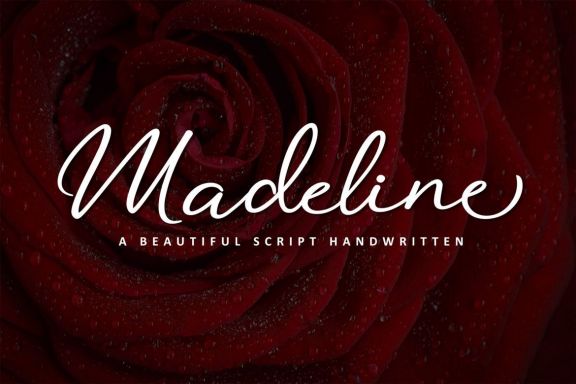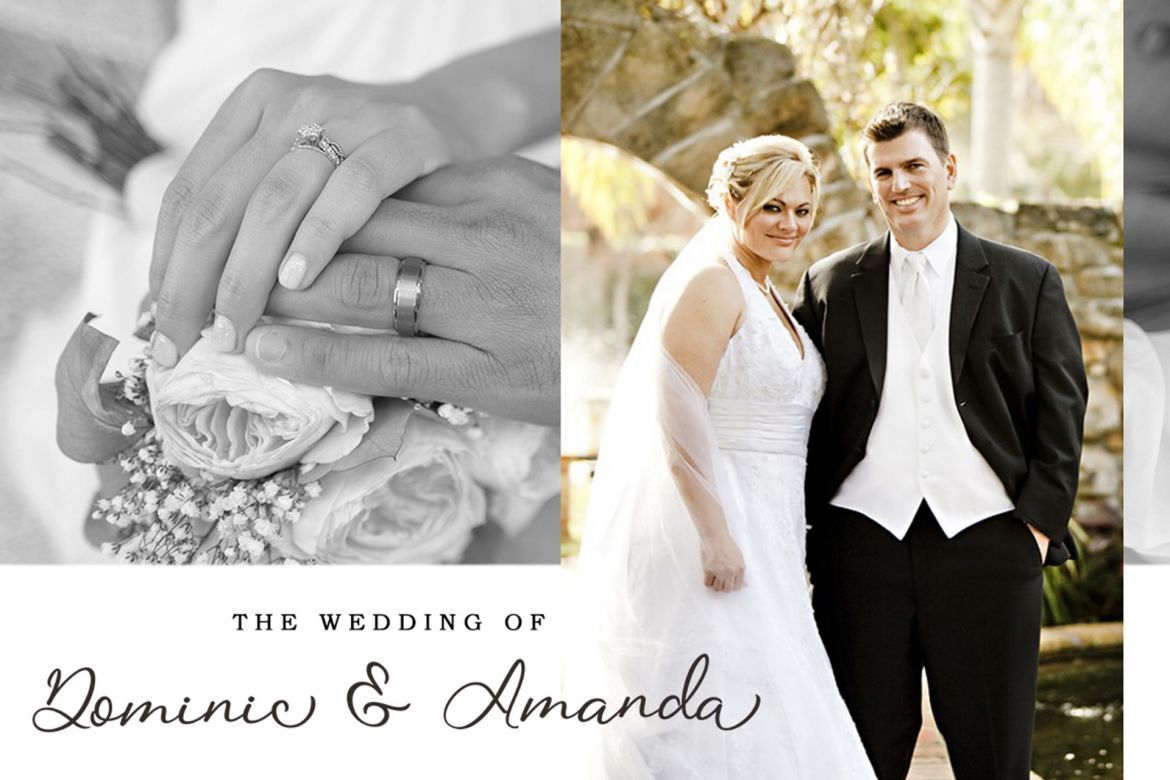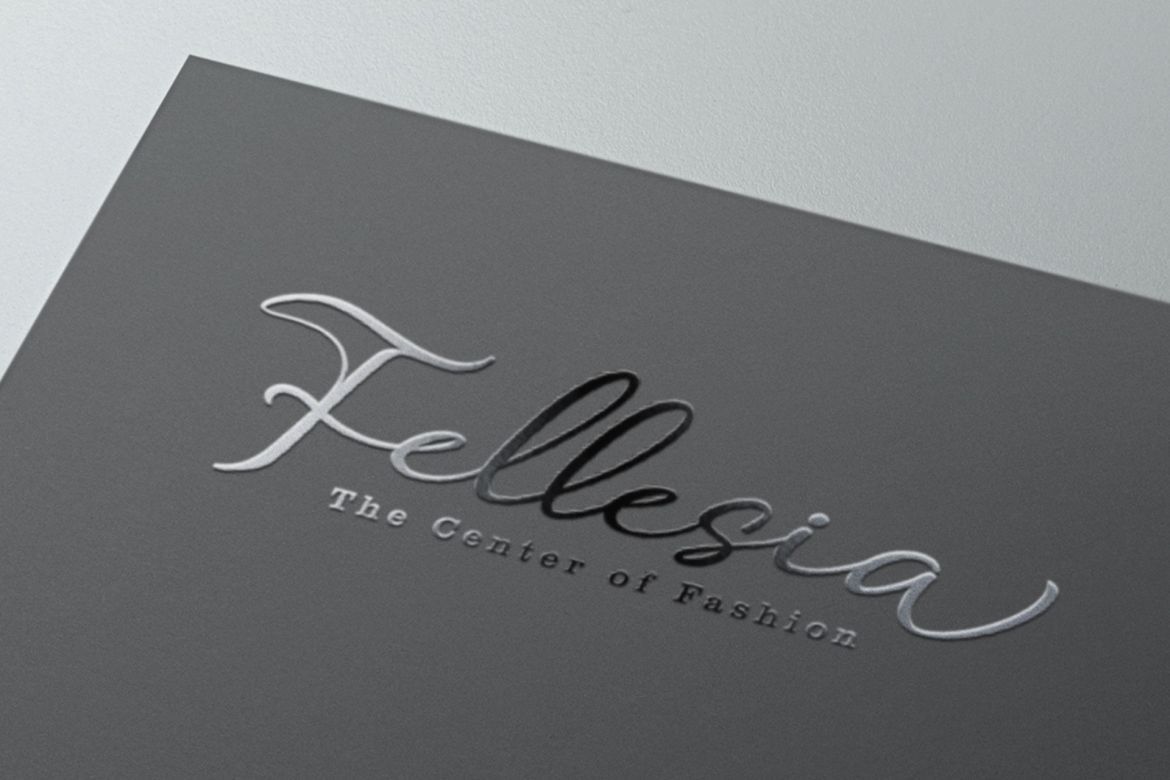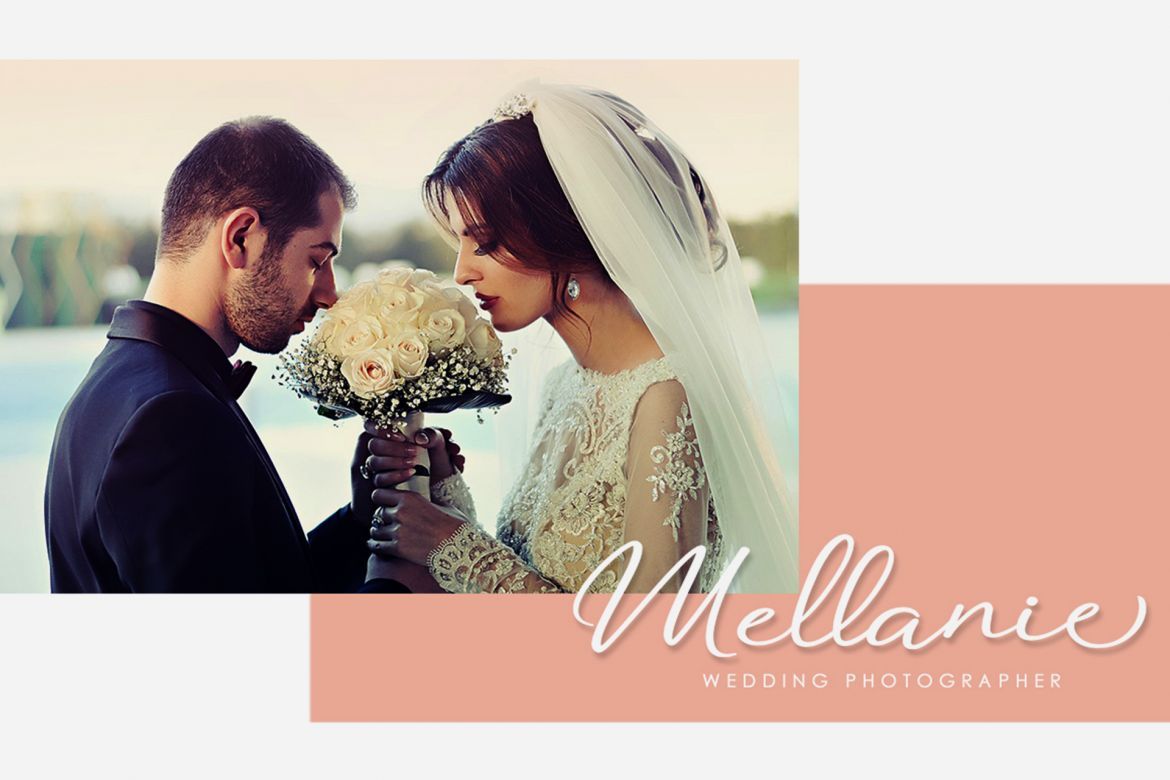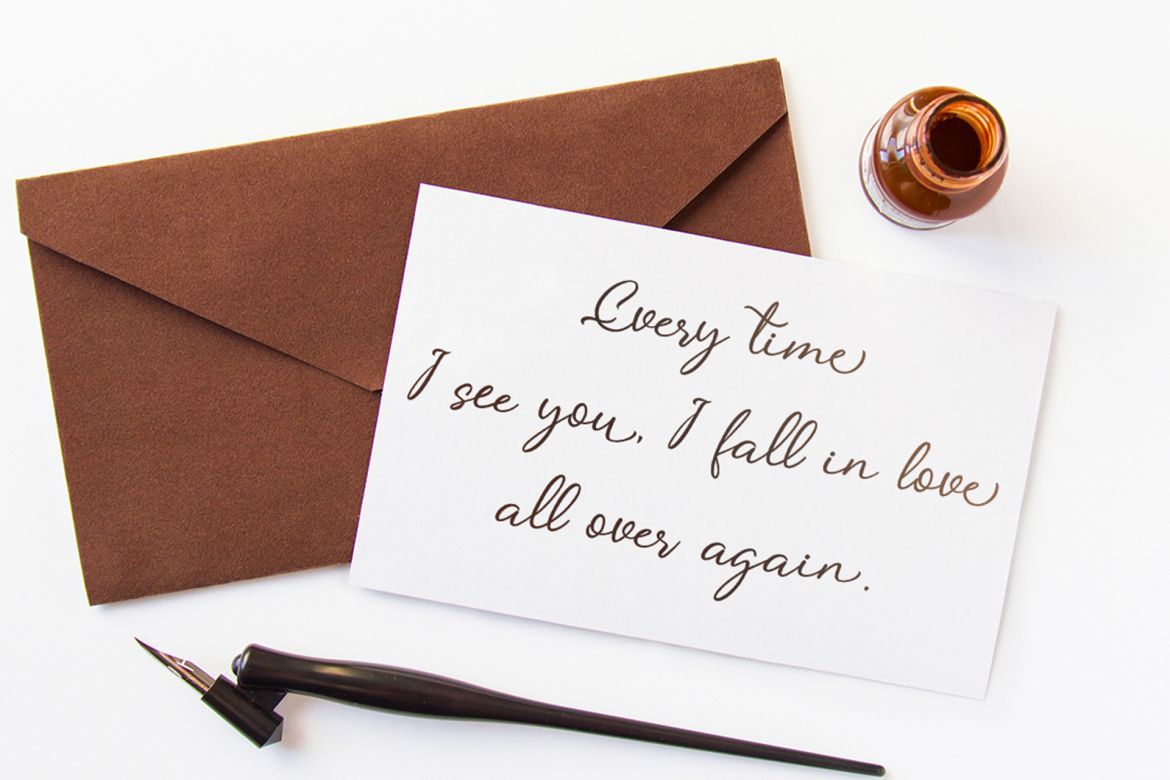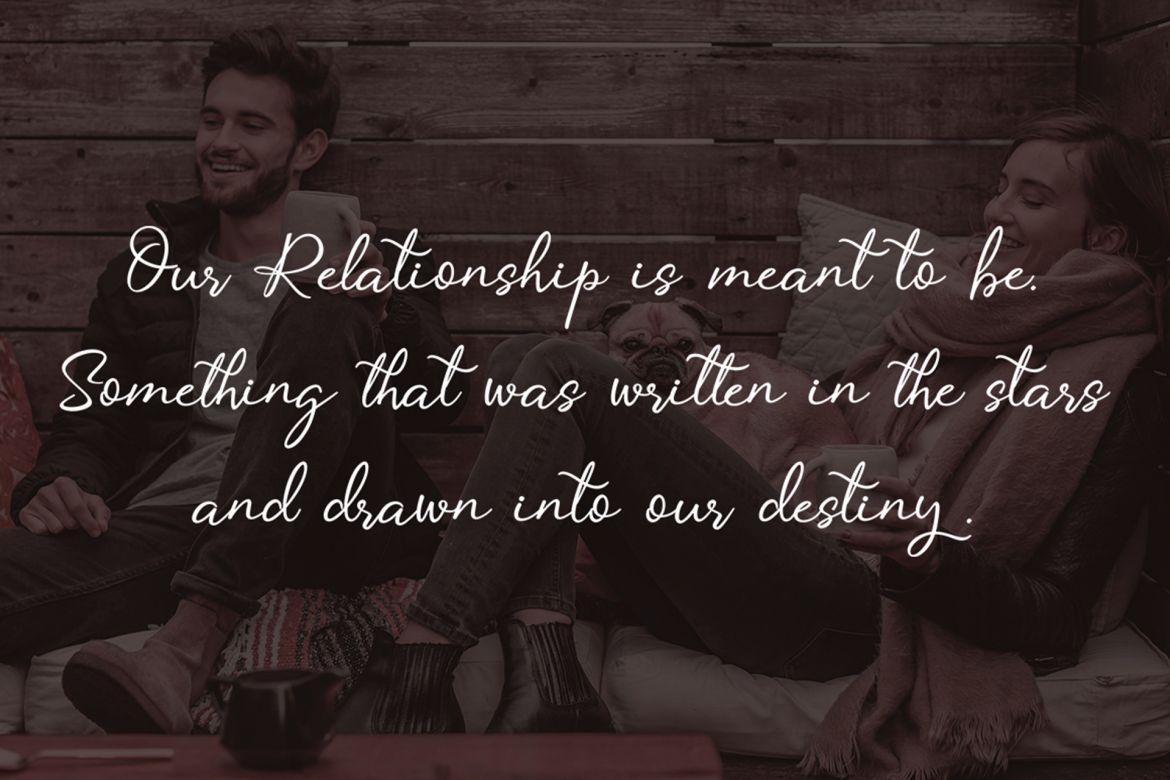
Madeline Script Font
The Madeline is a beautiful modern calligraphy font. It includes elegant ending swashes which makes it perfect to give a luxurious feel to your designs.
It’s perfect for logos, product packaging, wedding invitations, branding, headlines, signage, labels, signature, book covers, posters, quotes and more.
• each font has stylish handwritten style